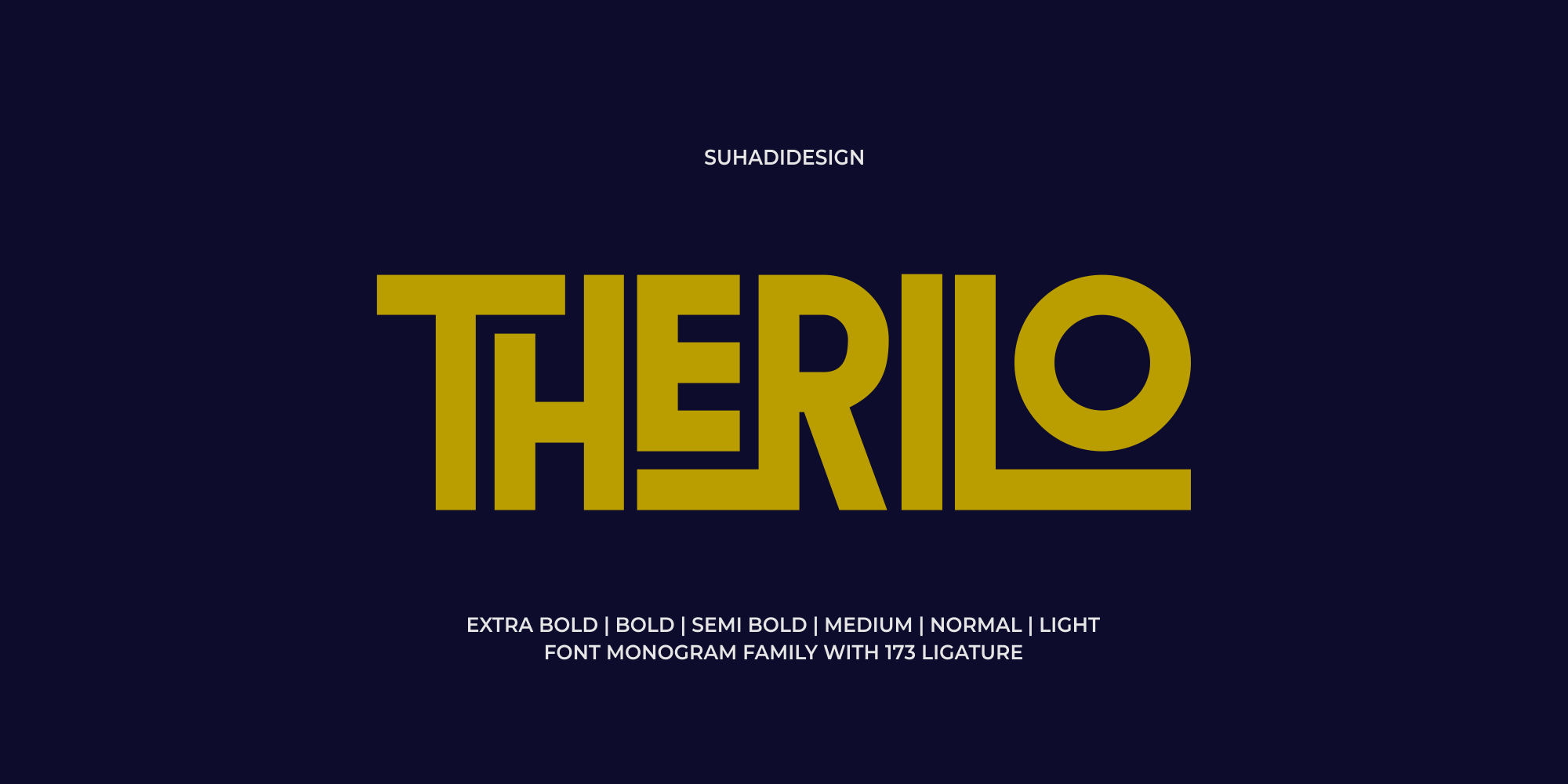
Therilo Bold Font is perfect for powerful headline designs, impactful advertising campaigns, sports team branding, automotive industry logos, construction company signage, fitness center materials, bold magazine covers, industrial product packaging, masculine fashion brands, and high-energy marketing projects that require commanding typography with strong visual presence.
What makes Therilo Bold Font so exciting is its exceptional combination of robust weight and refined character structure that commands immediate attention without sacrificing readability. This font features thick, powerful strokes with carefully balanced proportions that create maximum visual impact while maintaining professional sophistication. The bold letterforms are engineered to perform excellently across both large-scale applications and smaller text sizes, making it incredibly versatile for brands that need to project strength and confidence.
The Therilo Bold Font family includes multiple weights and styles: Regular, Medium, Bold, Extra Bold, Black, and their corresponding Italic variants. Each weight maintains the signature powerful character while offering comprehensive flexibility for dynamic design applications and assertive typographic hierarchies.
Professional designers consistently choose Therilo Bold Font Free Download for projects requiring maximum typographic impact with maintained elegance. Whether you're developing powerful brand identities, creating attention-grabbing promotional materials, designing sports marketing campaigns, or crafting bold editorial layouts, this font delivers exceptional strength and visual authority. The font's comprehensive character set supports multiple languages and includes stylistic alternates while ensuring optimal legibility at various scales, making it an essential tool for designers working on high-impact projects that demand bold, confident, and professionally commanding typography solutions with uncompromising visual strength.